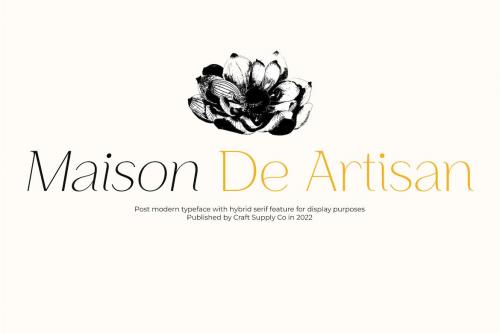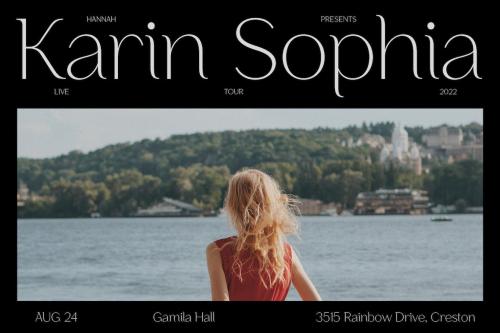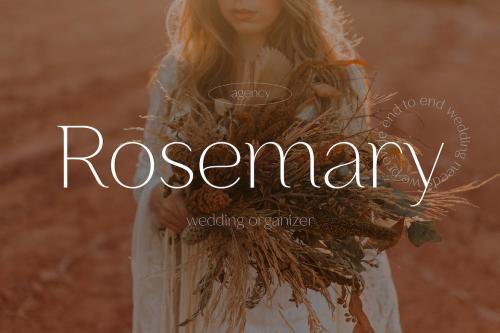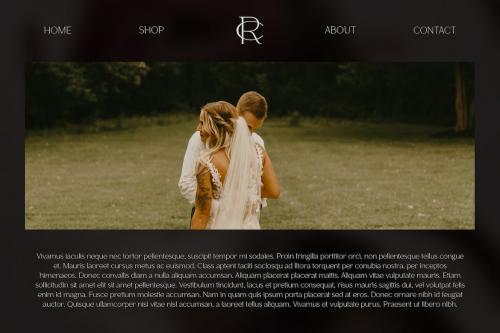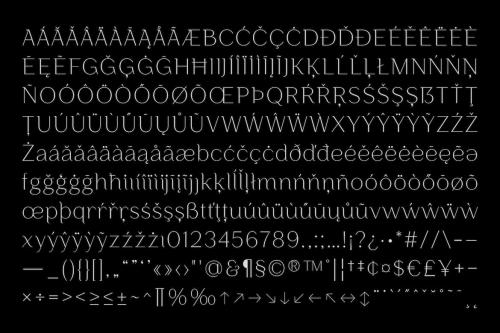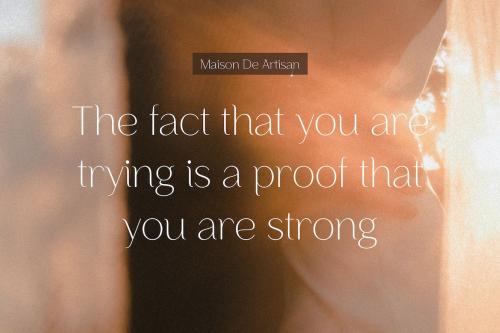
Maison de Artisan Font
Maison De Artisan Font
Introducing Maison De Artisan, a post modern typeface with hybrid serif feature that make it eye catching and perfect for display purposes. You want to make a greeting card or a package design, or even a brand identity, craft design, any DIY project, book title, poster, pop vintage design, retro design or any purpose to make your art / design project look pretty and trendy? Feel free to play with this typeface!
Introducing Maison De Artisan, a post modern typeface with hybrid serif feature that make it eye catching and perfect for display purposes.
You want to make a greeting card or a package design, or even a brand identity, craft design, any DIY project, book title, poster, pop vintage design, retro design or any purpose to make your art / design project look pretty and trendy? Feel free to play with this typeface!